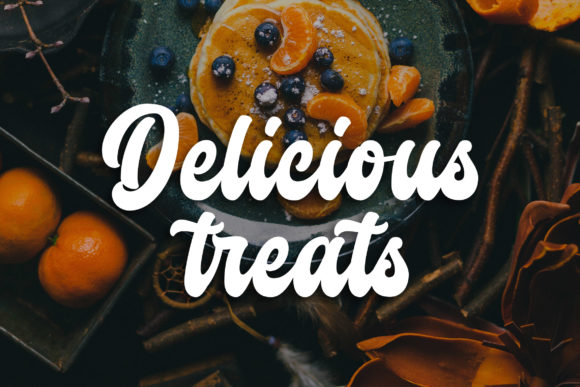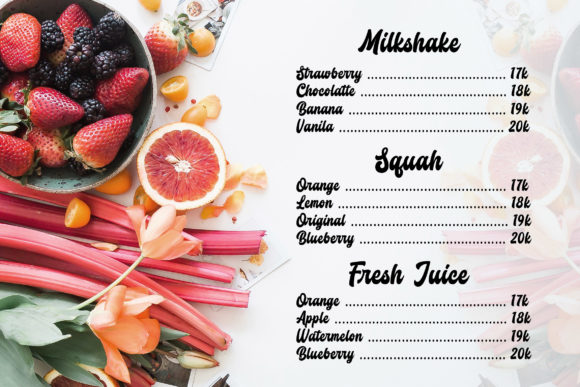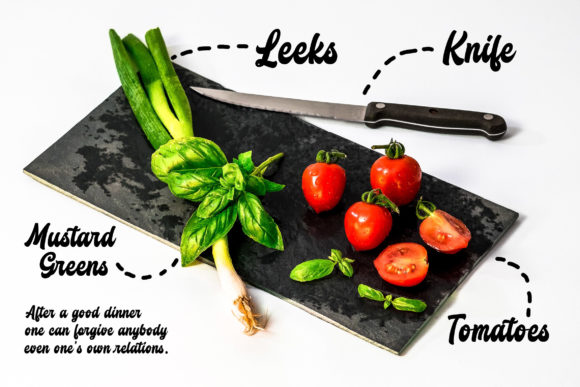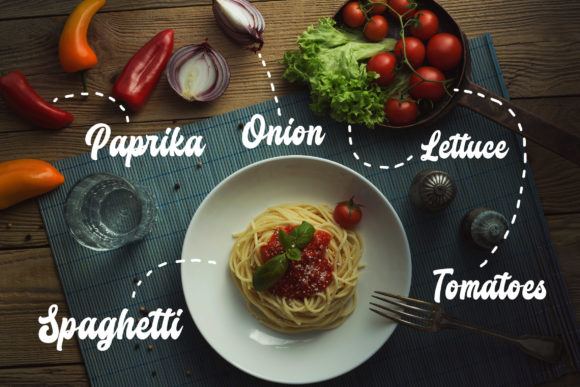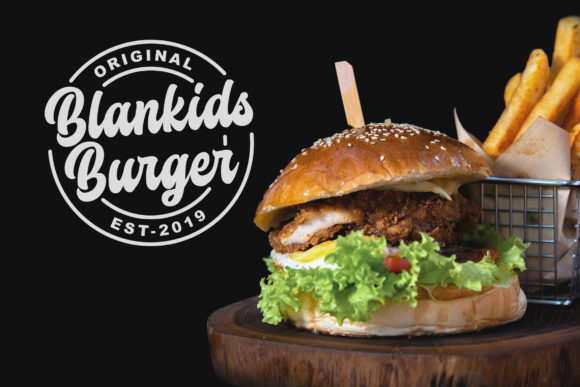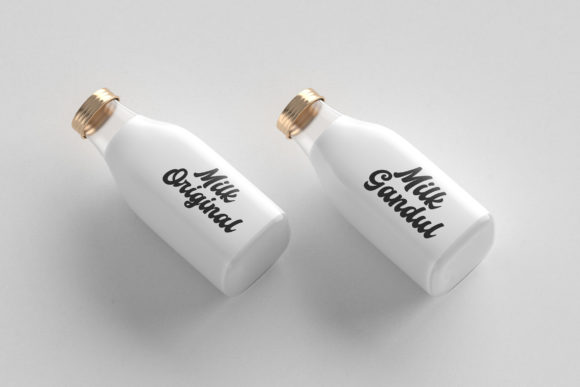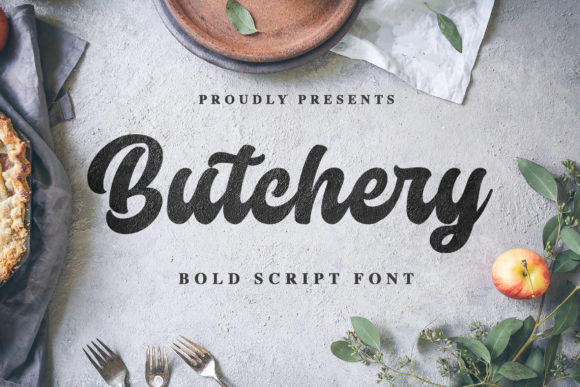
Introducing Butchery Font: The Ultimate Handwritten Font for Your Creative Projects
Are you a designer, crafter, or DIY enthusiast looking for a font that exudes a sense of warmth, coziness, and romance? Look no further than Butchery Font! This delightful handwritten font is designed to bring a touch of homemade charm to your creative projects, and we’re excited to share its features and benefits with you.
What is Butchery Font?
Butchery Font is a fun and cute handwritten font that boasts a unique, organic feel. Its irregularities and quirks give it a distinctly homemade look that’s perfect for projects that require a personal touch. Whether you’re designing invitations, packaging, or digital content, Butchery Font is sure to add a dash of whimsy and personality to your work.
The Romantic Charm of Butchery Font
One of the standout features of Butchery Font is its romantic charm. The font’s flowing lines, subtle imperfections, and gentle curves evoke a sense of nostalgia and warmth. It’s the perfect choice for projects that require a touch of elegance and sophistication, such as wedding invitations, branding materials, or social media graphics.
Key Features of Butchery Font
- Handwritten style: Butchery Font is a genuine handwritten font, crafted to capture the imperfections and uniqueness of human handwriting.
- Homemade feel: The font’s irregularities and quirks give it a distinctly homemade look that’s perfect for projects that require a personal touch.
- Romantic charm: Butchery Font’s flowing lines, subtle imperfections, and gentle curves evoke a sense of nostalgia and warmth.
- Versatile: The font is suitable for a wide range of creative projects, from digital content to print materials.
Who Can Benefit from Butchery Font?
Butchery Font is an excellent choice for a variety of designers, crafters, and DIY enthusiasts, including:
- Graphic designers: Butchery Font is perfect for designers looking to add a personal touch to their work, such as in logos, branding materials, or social media graphics.
- Crafters: Crafters who create handmade products, such as jewelry, candles, or soap, can use Butchery Font to add a touch of personality to their packaging and marketing materials.
- DIY enthusiasts: DIY enthusiasts who create their own content, such as bloggers or YouTubers, can use Butchery Font to add a touch of warmth and personality to their digital content.
- Small business owners: Small business owners who want to create a unique and memorable brand identity can use Butchery Font to add a touch of personality to their marketing materials.
Tips for Using Butchery Font
To get the most out of Butchery Font, here are a few tips to keep in mind:
- Use it sparingly: Butchery Font is a statement font, so use it sparingly to add emphasis and personality to your work.
- Pair it with other fonts: Butchery Font pairs well with clean, sans-serif fonts, such as Arial or Helvetica, to create a striking contrast.
- Experiment with colors: Butchery Font looks great in a variety of colors, from bright and bold to soft and pastel.
In conclusion, Butchery Font is a unique and charming handwritten font that’s perfect for designers, crafters, and DIY enthusiasts who want to add a touch of personality to their creative projects. With its homemade feel, romantic charm, and versatility, Butchery Font is sure to become a favorite in your font collection. So why not give it a try and see how it can elevate your work?